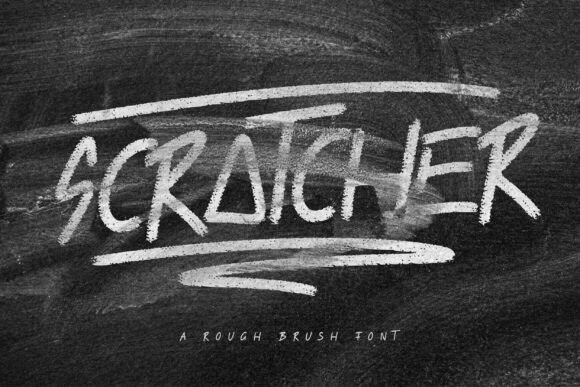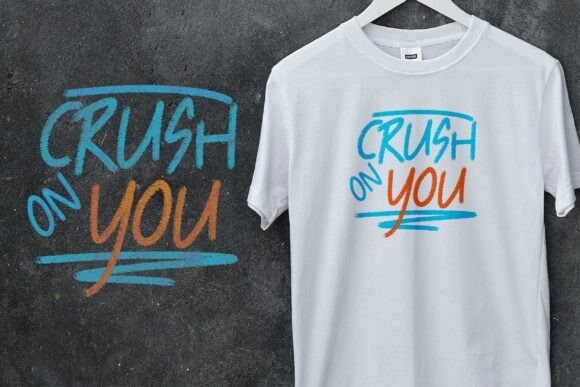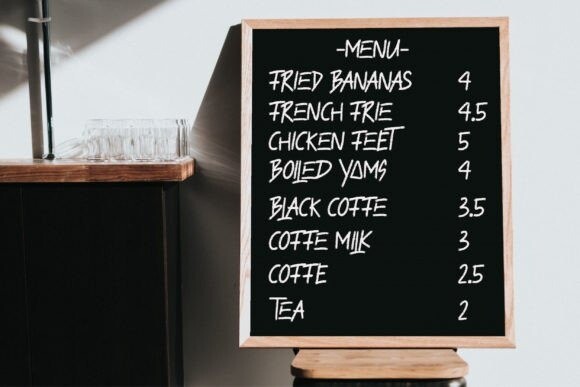
Scratcher Font
Scratcher Font is a rough, chalk-textured typeface. With hand-drawn strokes and broken lines, this font looks like chalk. Get every stroke real and realistic, with glyphs and open-type features with styles and straps, ornaments, and alternative additions. It can be used for various purposes. such as greeting cards, t-shirt designs, product designs, etc. This font is PUA encoded which means you can access all glyphs and swashes freely!